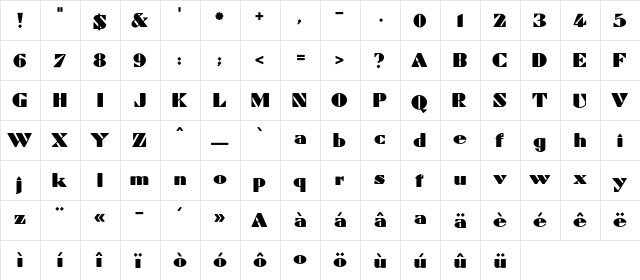
Beta Regular
Design Context for Beta Typeface
Beta is a composed and adaptable typeface that performs quietly and consistently across a wide range of design contexts.
Pro Tip: Pair Beta with a font of contrasting weight or personality to build a more expressive typographic hierarchy.